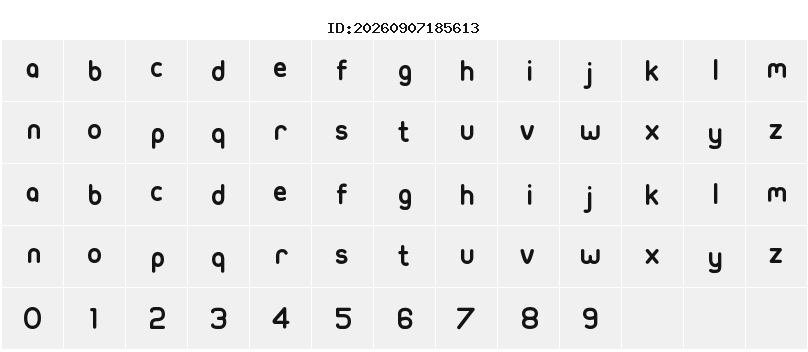
• Font Name: Ubuntu-Title-fr
• Font Style: Ubuntu-Title
• Full Font Name: Ubuntu-Title-fr
About Ubuntu-Title-fr.ttf
Ubuntu-Title-fr.ttf is a modern, elegant sans-serif font designed for ultimate readability and visual harmony. Perfect for branding, headlines, web design, and print materials.